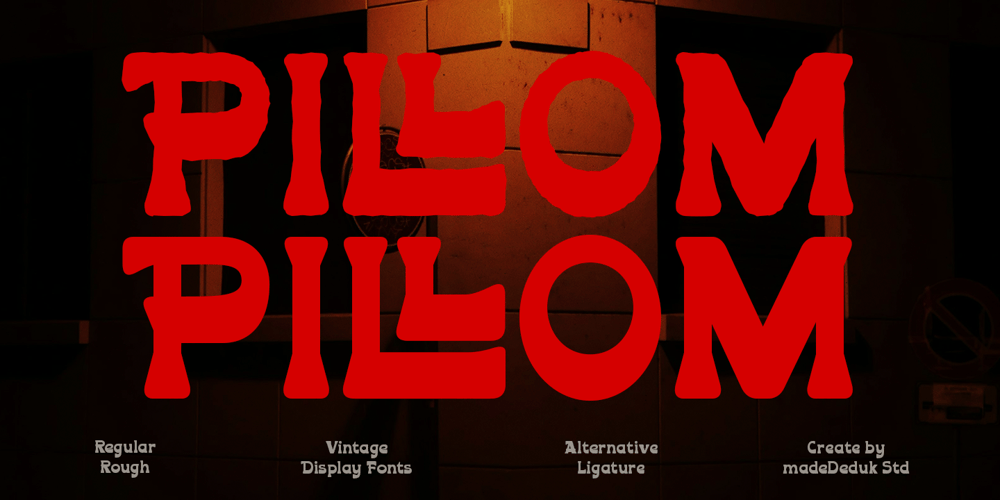
Piloom
Piloom font
Piloom Font Family was designed by madededuk and published by madeDeduk. Piloom contains 2 styles and family package options. Hello I’m really excited to introduce Pillom is a bold and playful vintage western typeface inspired from the cowboy century with regular, rough and ready use for your project design. To access additional characters please visit the glyphs panel in the design program you’re using.